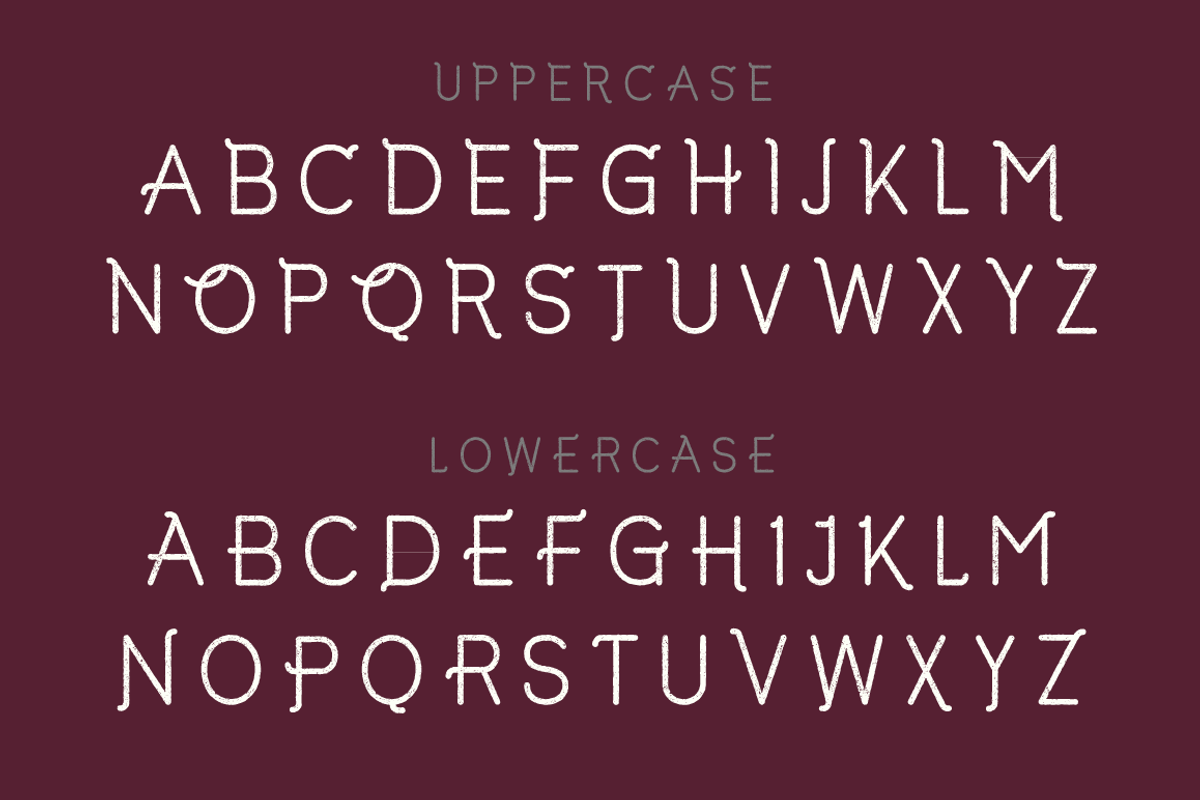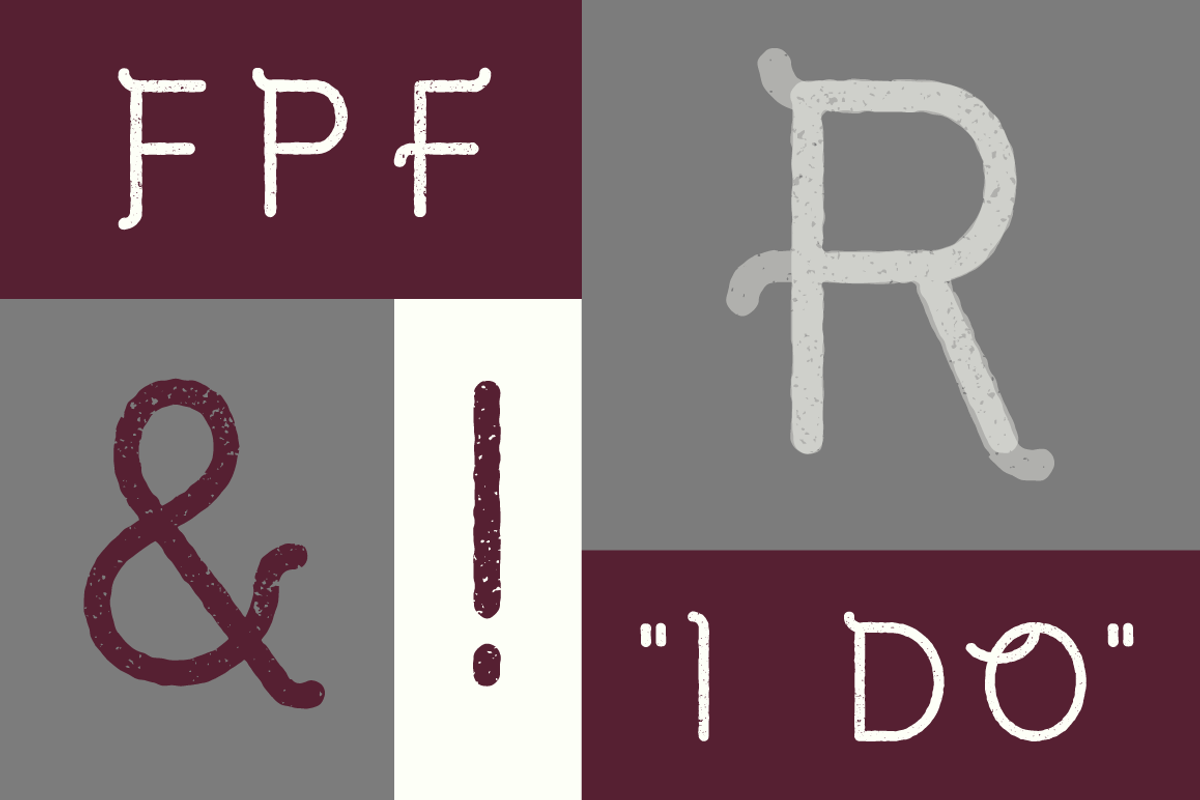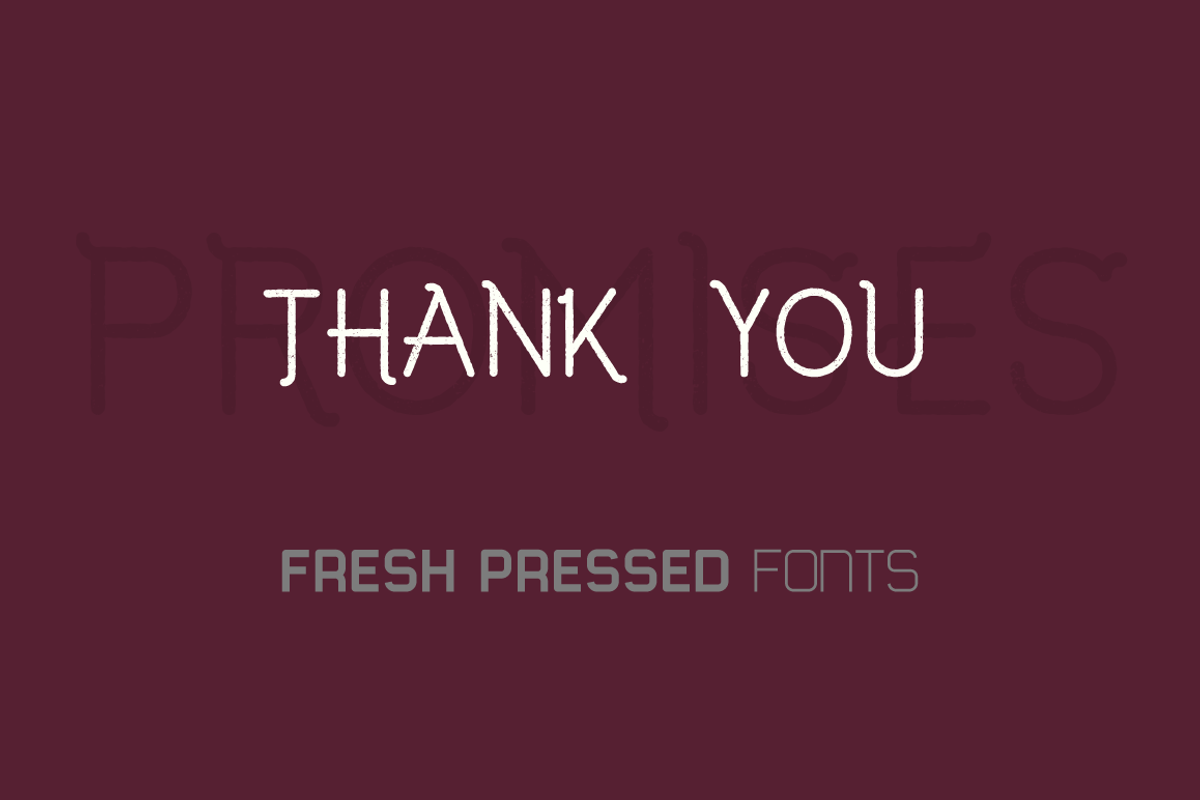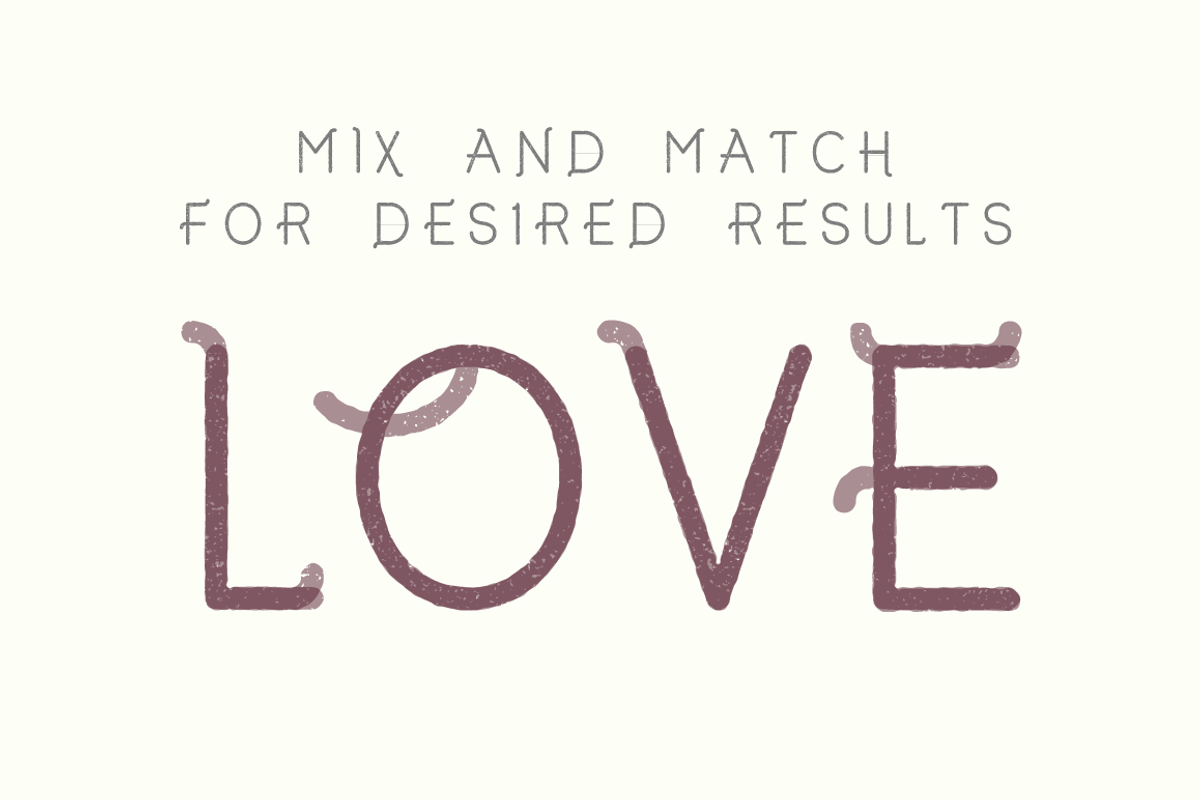
Promises Display Font
Promises Display Font by Fresh Pressed Fonts is a font selected for branding, posters, packaging, typography.
- This is an uppercase and lowercase font with 200+ glyphs and international language support.
- Uppercase and lowercase letters each have a slight variation, so when designing with Promises you can mix and match quickly to get your desi
Why Promises Display Font is worth a look
Promises Display Font by Fresh Pressed Fonts fits naturally into Branding, posters, packaging, typography.